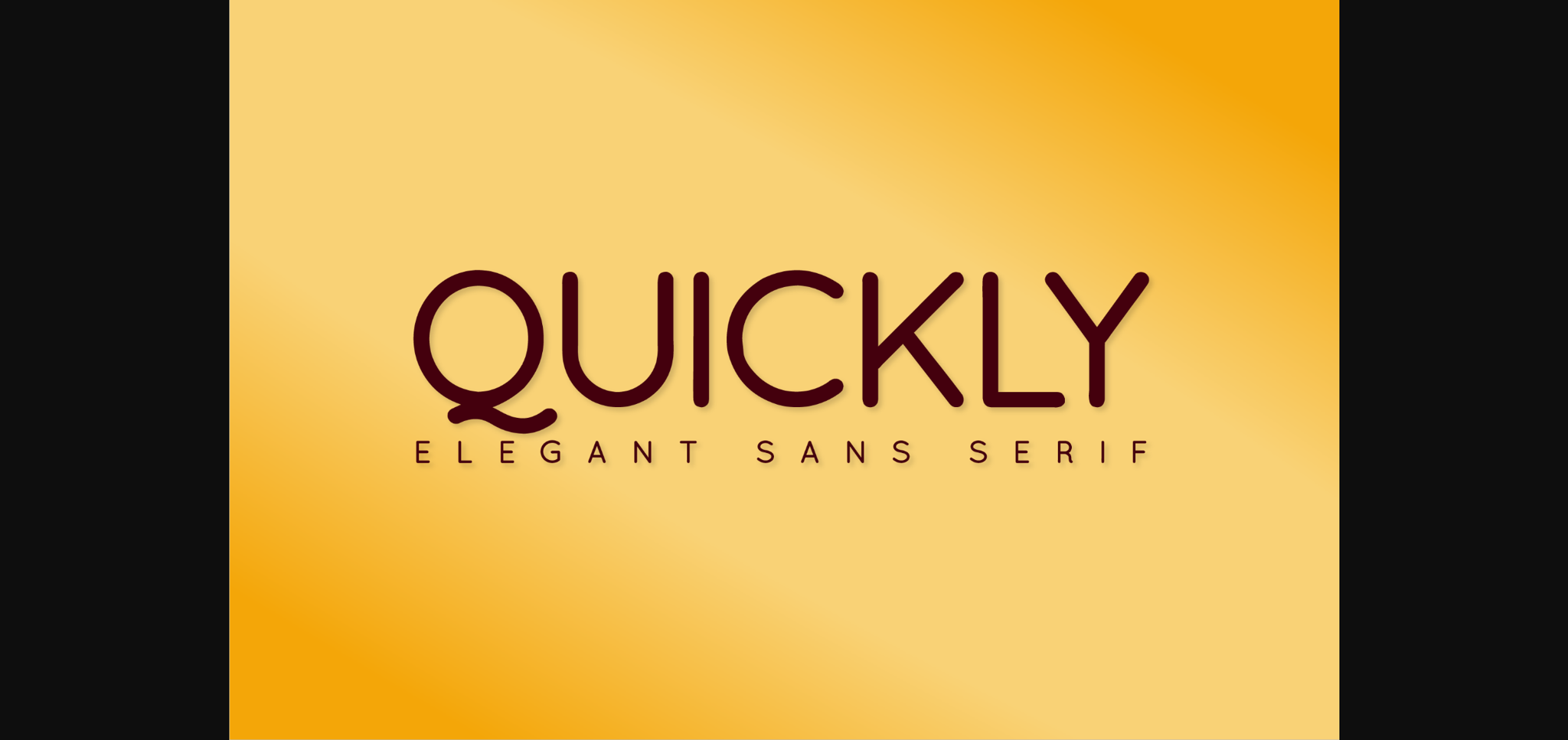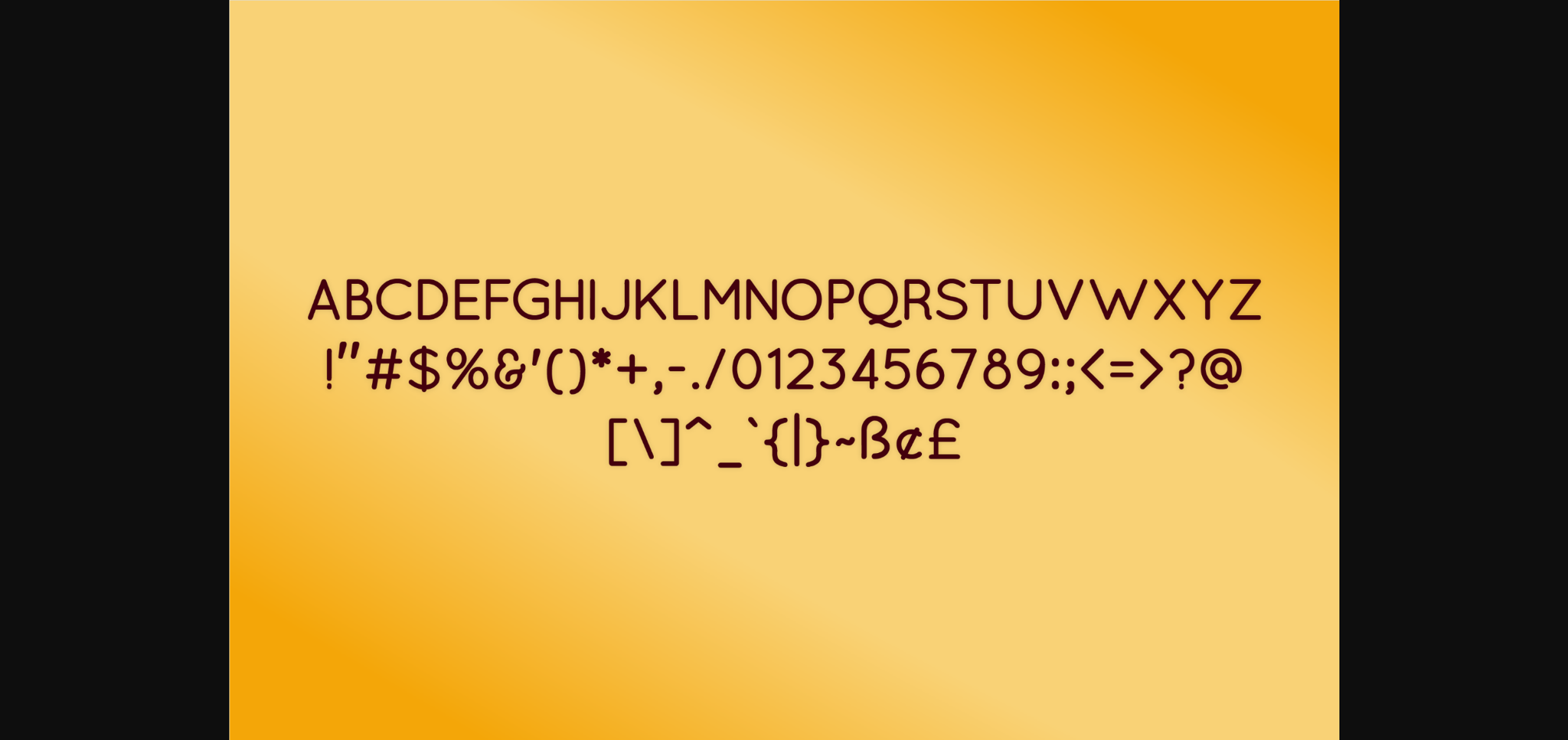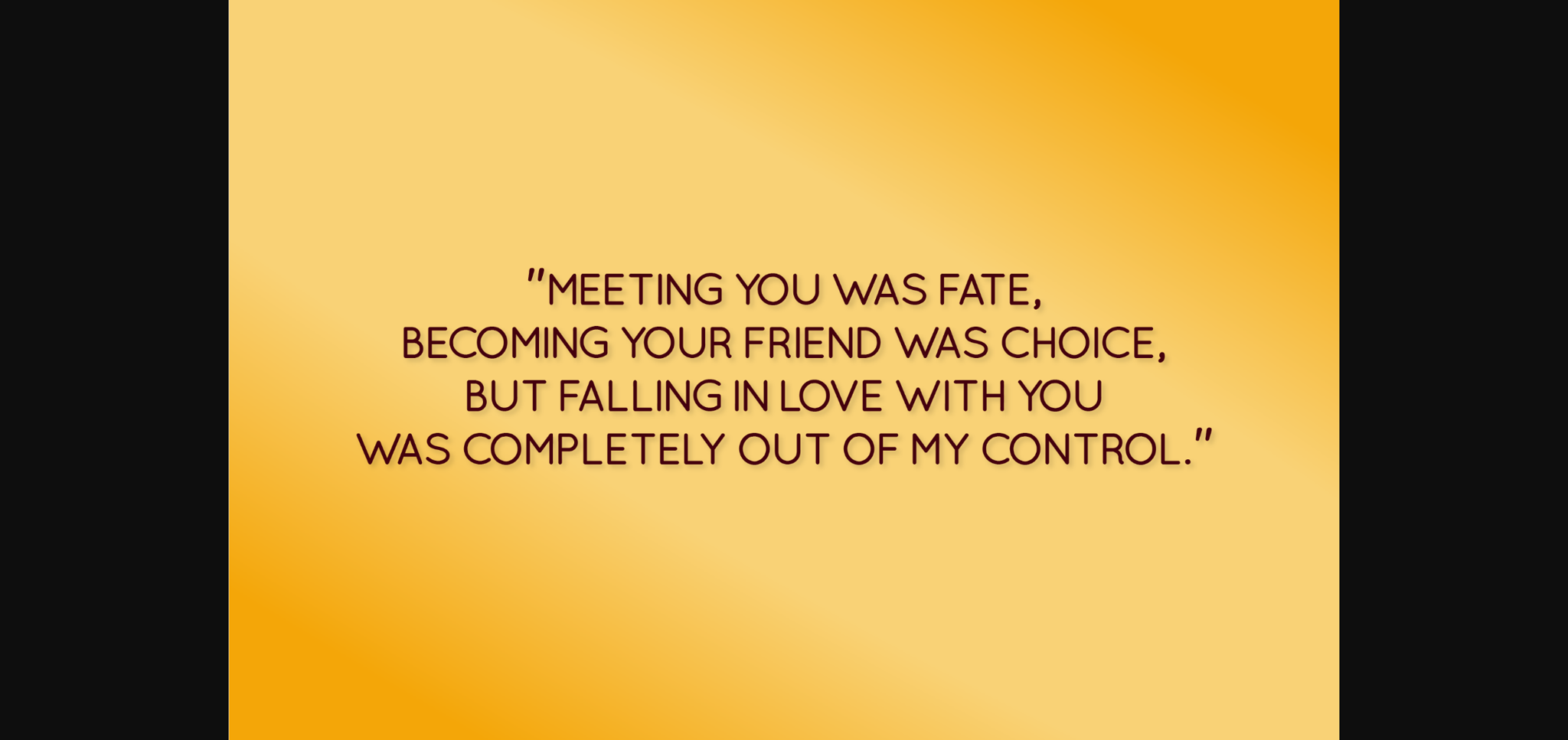
About Quickly Font
Quickly is a fun and smooth sans serif font that works well in a wide variety of design projects. Get inspired by its modern simplicity.